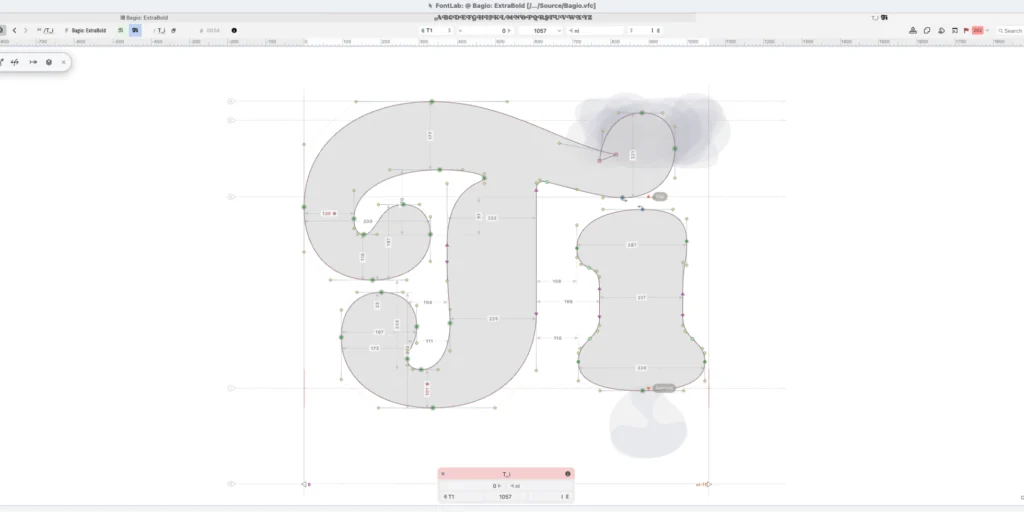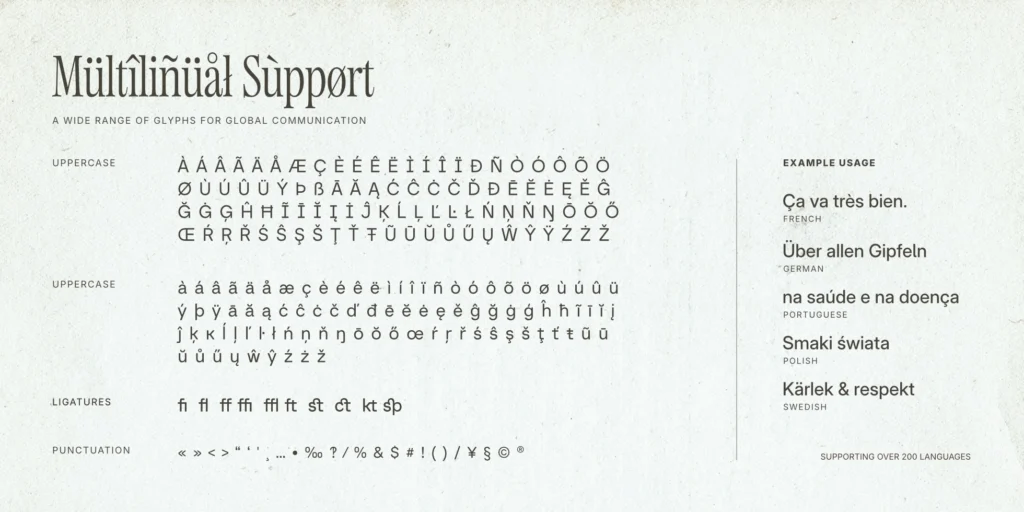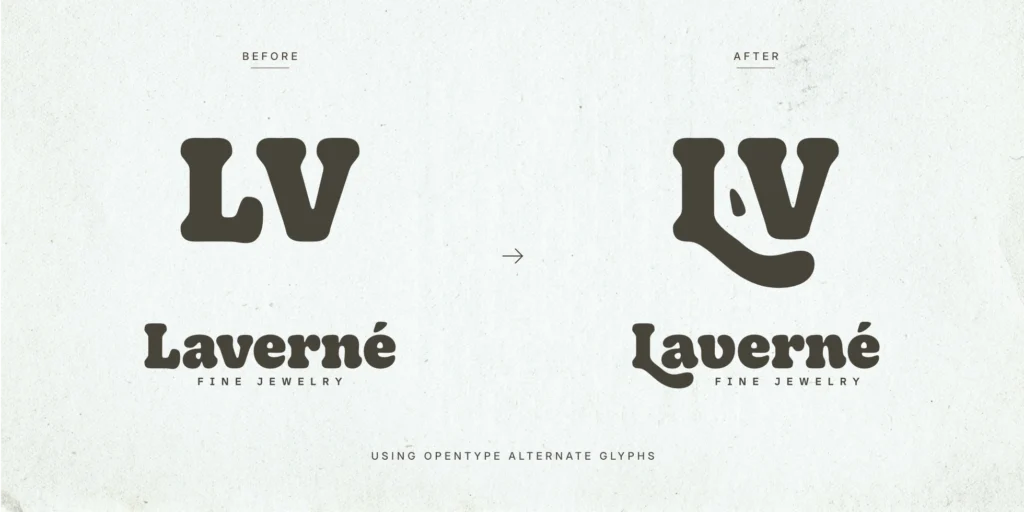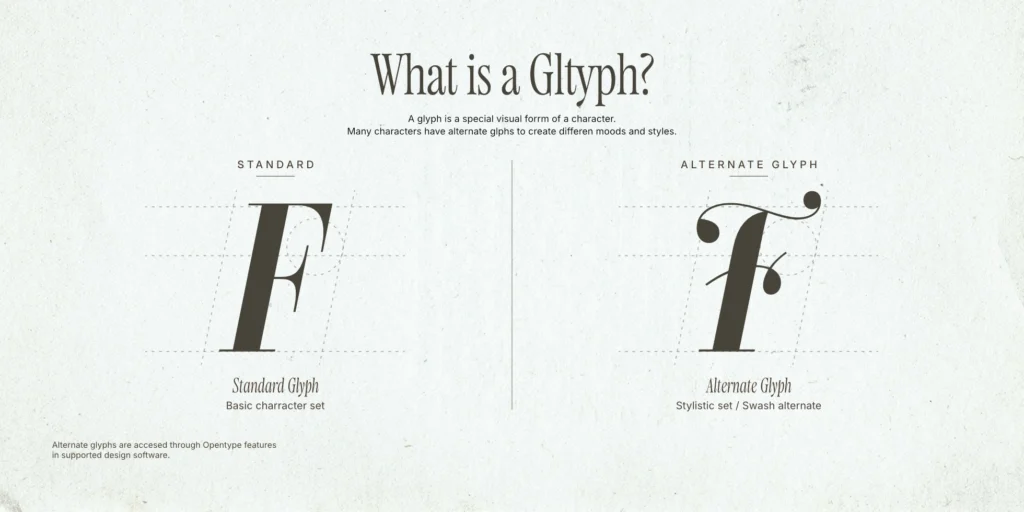
What is a Glyph? 3 Ways It Upgrades Your Branding in 2026
Have you ever wondered why the premium font you bought looks plain when you type with it? Discover what a glyph is and how to unlock the hidden characters that will transform your typography from amateur to premium.
You just bought a stunning premium font. The promotional images showed gorgeous, sweeping letterforms and unique connections. But when you type out your client’s logo, it looks completely plain. What went wrong? To fix this, you absolutely must understand what is a glyph and how to access it. Many designers miss out on the true power of a typeface because they don’t know how to unlock its hidden features. If you want to stop delivering basic typography and start creating custom, expensive-looking branding, it’s time to master the anatomy of your font library.
The Basics: Defining the Term
Simply put, a glyph is a specific graphic representation of a character. When you hit the letter “A” on your keyboard, you are typing a character. The actual visual design of that “A” that appears on your screen is the glyph.
A standard, cheap font usually has one glyph per character. However, premium, professionally coded typefaces (known as OpenType fonts) contain multiple alternate glyphs for a single character. This allows you to swap out a standard letter for one with a decorative swash, a different tail, or a more dramatic curve.
Typography educational graphic explaining the concept of a glyph, illustrating the shape difference between a standard glyph of the letter F and a swash-style alternate glyph of the same letter.
1. Unlocking Customization with Alternates
When a client hires you for a branding project, they don’t want a logo that looks like it was just typed out in a standard word processor. They want something bespoke.
By utilizing alternate glyphs, you can modify specific letters in a logotype to make it entirely unique. Swapping out a terminal (the end of a letter) or adding a subtle swash can change the entire mood of the design. This level of customization justifies higher agency fees because you are delivering a tailored typographical asset, not just a typed word.
Visual comparison of the Laverné logo before and after using OpenType alternate glyphs from the Ketchup Manis typeface, highlighting the structural change in the letters L and V.
2. The Secret of Flawless Ligatures
Another vital type of glyph is the ligature. This is when two or more characters are combined into a single, beautifully integrated glyph to solve awkward spacing issues (like “fi” or “st”).
In my 15 years in the typography industry, I’ve learned that a font’s true quality lies in these hidden details. Creating a premium font family isn’t quick; it takes around four intensive months of engineering in FontLab 8. We obsess over the exact connection points of every ligature so they work seamlessly in professional software like Affinity Designer. This rigorous attention to OpenType features is exactly why our typefaces, like the “Charlea” font, have been selected for high-profile, global projects like the title sequences in Black Mirror Season 7.
3. Global Reach with Multilingual Glyphs
Finally, understanding glyphs is crucial for scaling your client’s brand globally. A truly premium typeface doesn’t just stop at the English alphabet.
It includes hundreds of additional glyphs to support Western, Central, and Eastern European languages. This means accents, umlauts, and special punctuation are carefully designed to match the core aesthetic. When you choose a font with a massive glyph palette, you future-proof your client’s brand for international expansion.